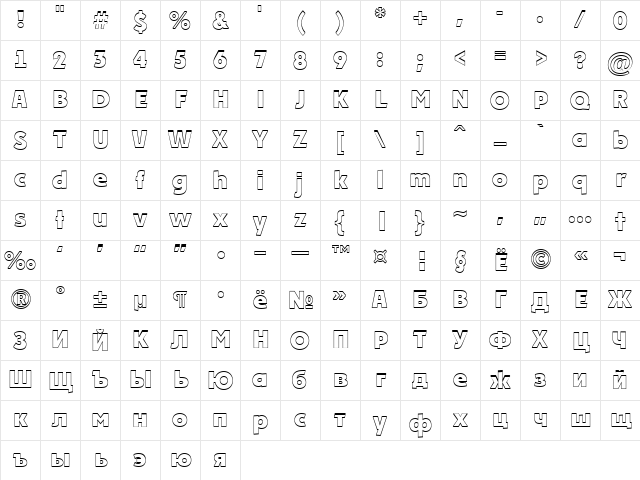
Complete a_PlakatCmplSh ExtraBold glyph index. Displaying only characters natively supported by a_PlakatCmplSh ExtraBold font.
a_PlakatCmplSh is a composed and adaptable typeface that performs quietly and consistently across a wide range of design contexts. Its bold stroke weight gives it real presence on the page.